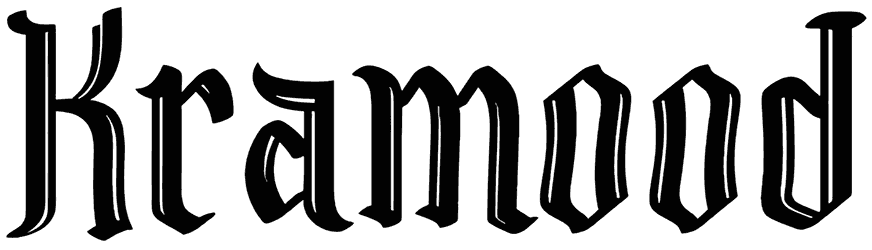
Kramood Font
There is still a tendency for designers to create designs that look elegant, traditional, and vintage with the use of old English fonts. We are pleased to present a free font, Kramood, a font that is included in our collection of epic and historical fonts.
Kramood has been created with a reed pen of exceptional quality. You can use this black letter and gothic font in drinks labels, poker cards, and many designs that require a historical atmosphere.